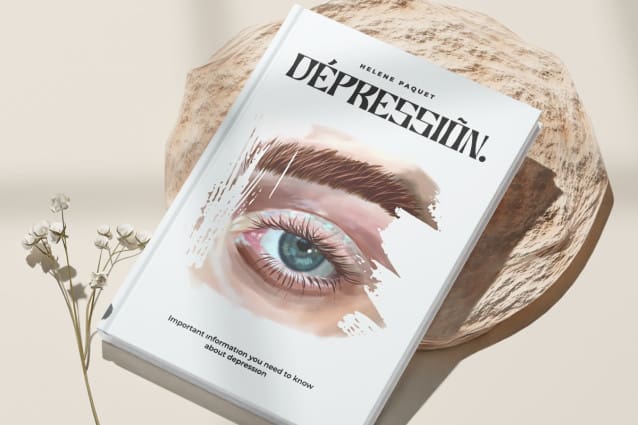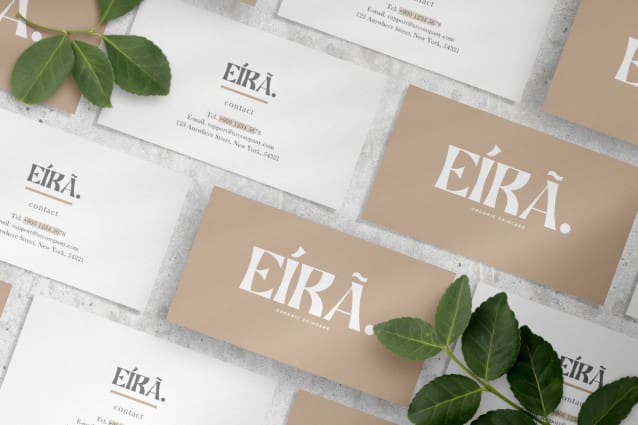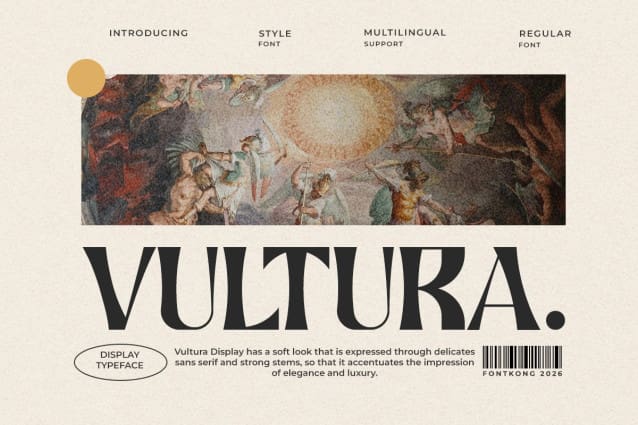
Vultura Font
Vultura Font – Modern Unique Serif Font is a font with a cool, stylish, and modern impression. This impression is what makes this font different from other serif fonts.  Vultura Font – Modern Unique Serif Font has a simple shape and a moderate serif. This font has sharp edges.
The characters described above make the  Vultura Font – Modern Unique Serif Font one of the best fonts that have high compatibility for branding beauty products.  Vultura Font – Modern Unique Serif Font can be used on product packaging, posters, advertisements, and magazines. This font can be used as a digital font and printed with the appropriate font size because legible font types support them.
Apart from being a product branding font, the  Vultura Font – Modern Unique Serif Font is also the best font that has high compatibility when used for social media, feed posts, and Instagram stories. With the presence of the  Vultura Font – Modern Unique Serif Font, it is hoped that it can increase your choices for serif font lovers in choosing the appropriate font for the object you are going to mix.